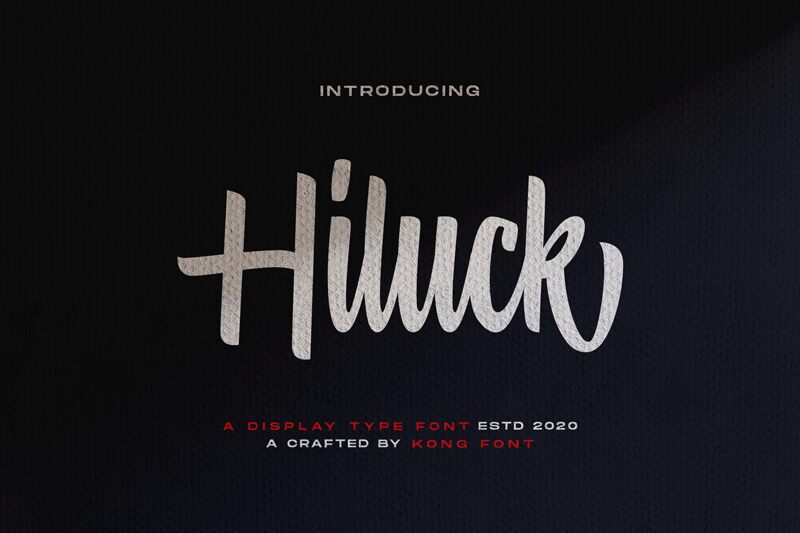
Hiluck font family by Kong Font is a script free font family with 8 font styles included. Energetic and expressive, the modern script letters of this typeface feature a dynamic flow that easily catches the eye with a contemporary flair. With a signature-like form, it carries an artistic presence in every letter and symbol as they elegantly sit on the background of your design.
Hiluck is stylish and sophisticated with an outstanding appearance that is resourceful when generating your business cards, brochures, file covers, and similar photogenic projects that need to have a personal form of branding. If you are instead working on web design, the font effortlessly brings its class to your social media platforms, ad campaigns, banners, posters, and more.